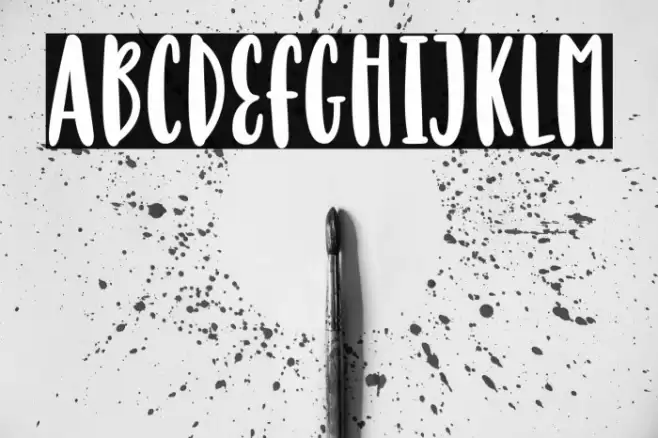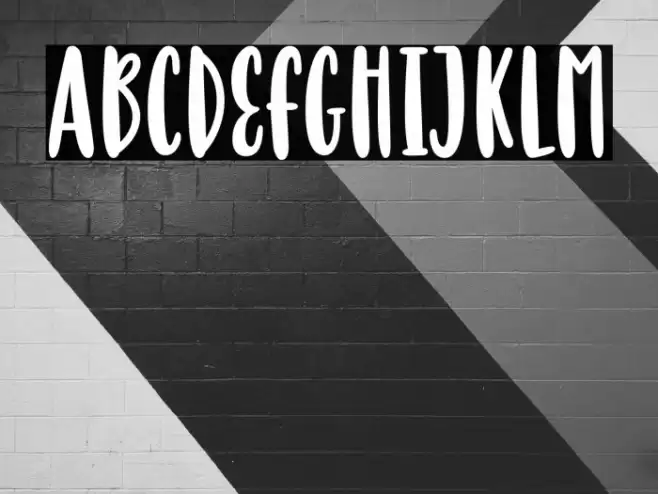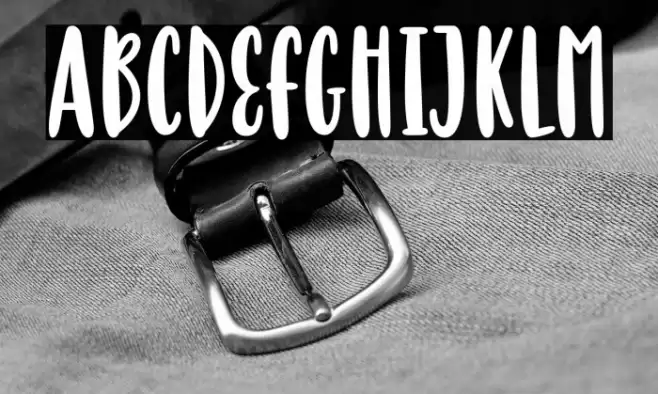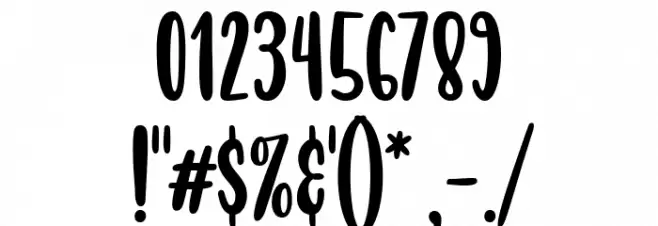
Literally Natural Font
Literally Natural Description
This font features a playful and organic handwritten style, characterized by its bold and flowing letterforms. The uppercase letters are tall and slightly narrow, with a consistent stroke width that gives them a strong presence. The lowercase letters maintain a similar style, with some playful variations in height and curve, adding to the font's casual and friendly appearance. The numerals are clear and easy to read, matching the overall aesthetic. Special characters are included, maintaining the same bold and lively style. This font's natural and informal look makes it ideal for projects that require a personal touch.
A bold, playful handwritten font with an organic and friendly style from Uncategorized fonts.
- Proposed Projects: Ideal for greeting cards, invitations, posters, and social media graphics that require a personal and lively touch.
- Overall Style: Casual, Playful
- Use Case: Headlines, Logos, Invitations